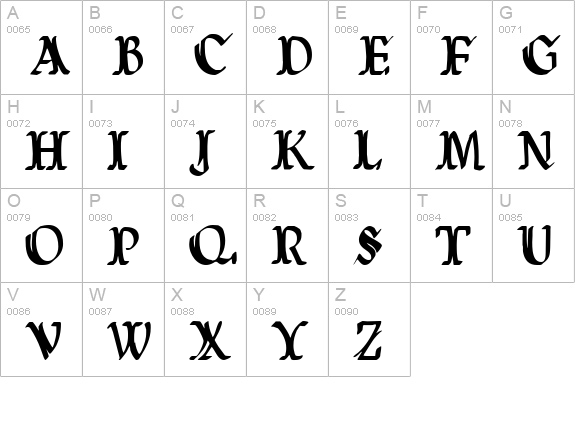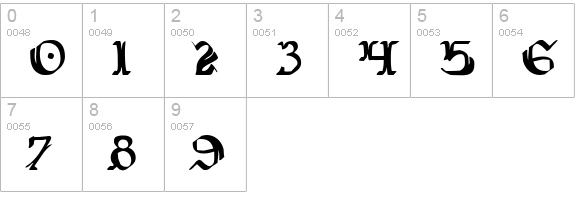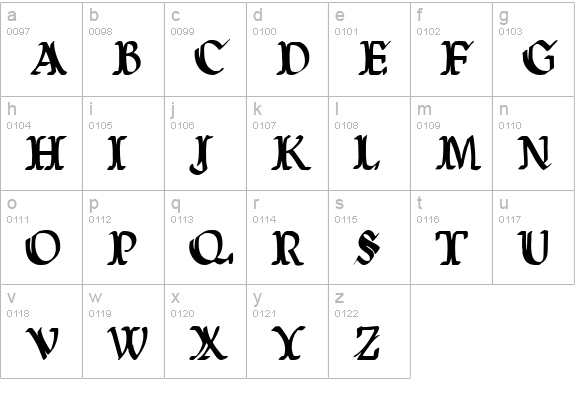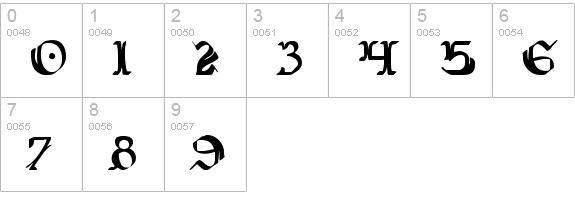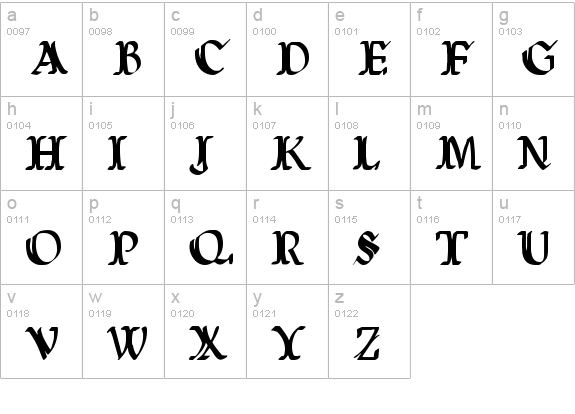
Wars of Asgard Condensed Font Details
Wars of Asgard Condensed is a distinctive, condensed-width variant in the Wars typeface family \xE2\x80\x94 well suited to design and typography projects.
Wars of Asgard Condensed font is a powerful and dynamic typeface that exudes strength and boldness. With sharp edges and a modern design, this font is perfect for creating eye-catching headlines, posters, and branding materials. Its condensed style adds a sense of urgency and impact to any project. Best of all, Wars of Asgard Condensed font is available for free download at FontsMarket.com. This means you can easily access and use this striking font in your designs without any cost. Don't miss out on the opportunity to add a touch of Norse-inspired fierceness to your creations with Wars of Asgard Condensed font. Download it today and make your designs stand out!